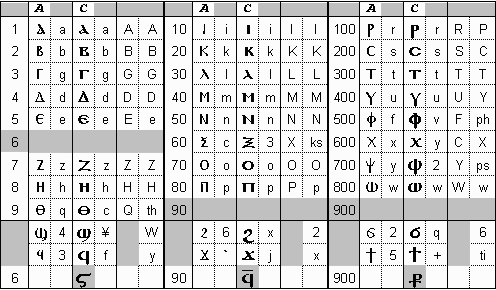
C2SRC Coptic Fonts & Transliterations
The fonts featured on this page are true-type fonts chosen for their resemblance
to the uncial script of Codex II. These fonts are in the public domain and may be
col 1 = numeric value of the Greek/Coptic letter
col 2 = the "A-font" = SPAchmim (spachmim.ttf)
col 3 = keyboard-mapping for spachmim.ttf
col 4 = the "C-font" = Coptic (coptic2.ttf) <== the font used on this website
col 5 = keyboard-mapping for coptic2.ttf
col 6 = English characters used in the B-Greek transliteration scheme
col 7 = English characters used in the author's Coptic-transliteration scheme
font sizes displayed: SPAchmim 14, Coptic 16